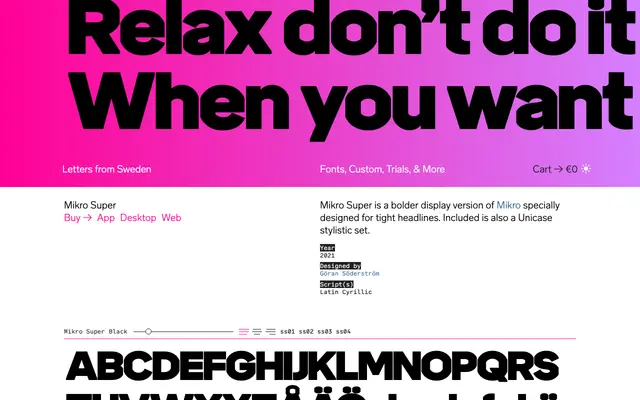
Mikro Super
A heavy display companion to Mikro by Göran Söderström, built for tight headlines with a unicase stylistic set included.
Released in 2021, this is the display-weight offshoot of Göran Söderström's Mikro, offered in three weights from Medium to Black and intended specifically for large, close-set type. A unicase stylistic set adds a secondary register for more expressive headline work. Latin and Cyrillic script coverage makes it viable across a broad range of European and Slavic language contexts.
A bold display-weight extension of the Mikro family, designed specifically for tight headlines at large sizes. Its single-weight Black and companion Bold and Medium cuts place it firmly in the display category rather than a workhorse text family.